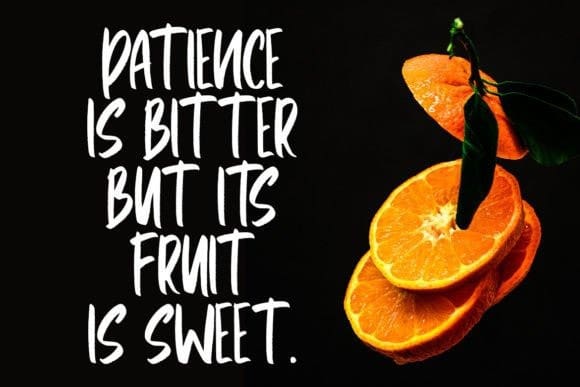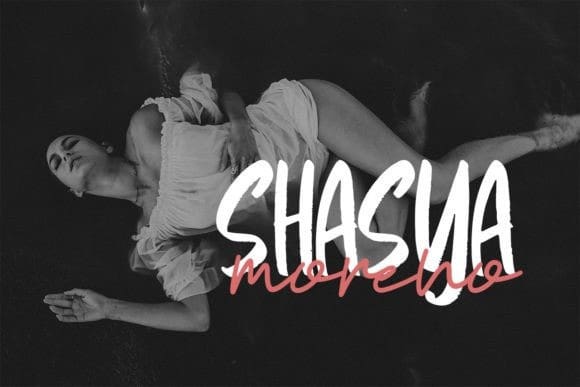
Cropasy Brush Font
Cropasy Brush Font is a modern brush display font, crafted to give your headlines and logotype projects a stylish touch. This font reads as strong, confident, and dynamic and can add tons of urban character to your designs.